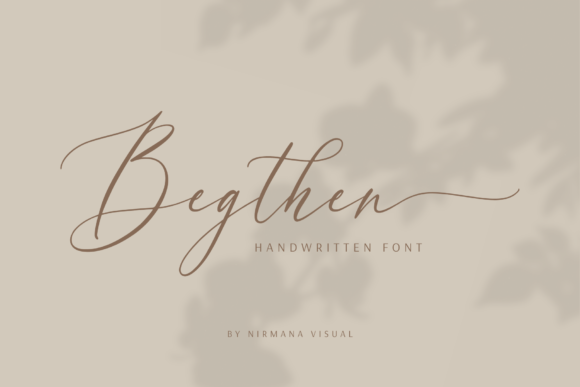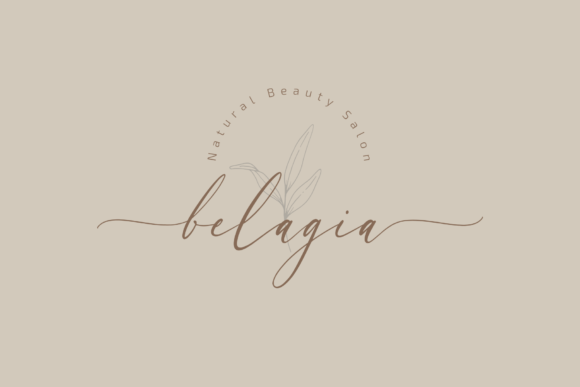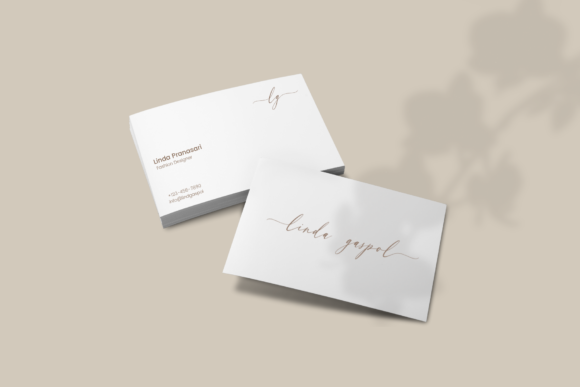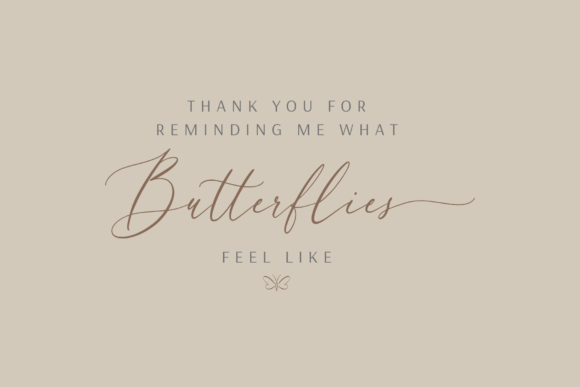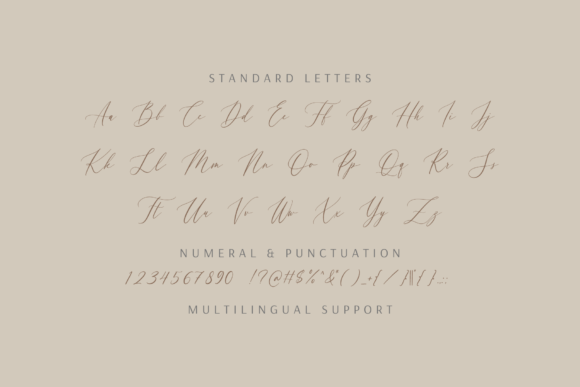
Begthen Font
About Begthen Font
Begthen is a beautiful script font carefully created with a touch of elegance. It features a gorgeous combination of timeless style and authentic calligraphy. This font is PUA encoded which means you can access all of the glyphs and swashes with ease!